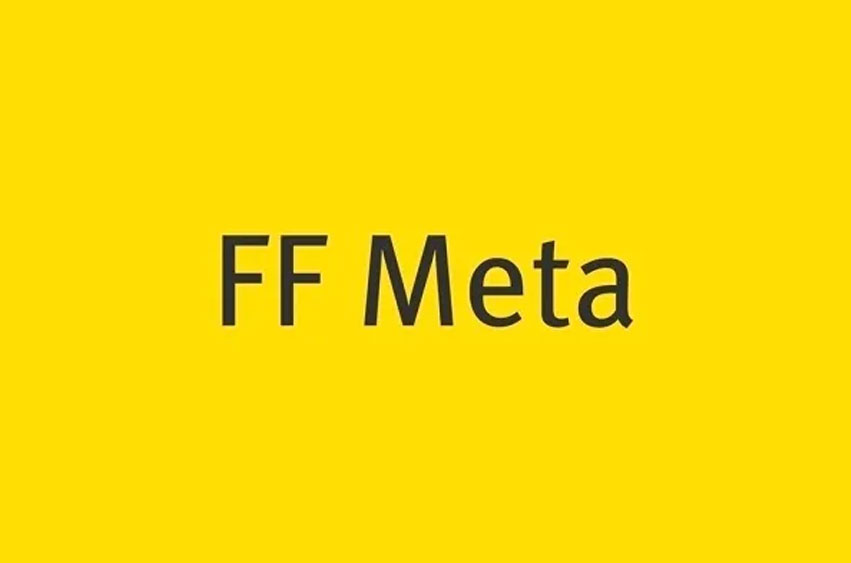
FF Meta Font
FF Meta Font Erik Spiekermann designed and released the FF Meta sans serif typeface family in 1991 as part of the FontFont library. According to Spiekermann, it is intended as “an antidote” to Helvetica, which Spiekermann found to be “boring and dull.”
Interestingly, FF Meta came to life because of an unusual order from Deutsche Bundespost. In the 1990s, FF Meta was widely acclaimed by a number of leading designers such as Spiekermann and E. M. Ginger; many even consider it one of Helvetica’s successors from that era.